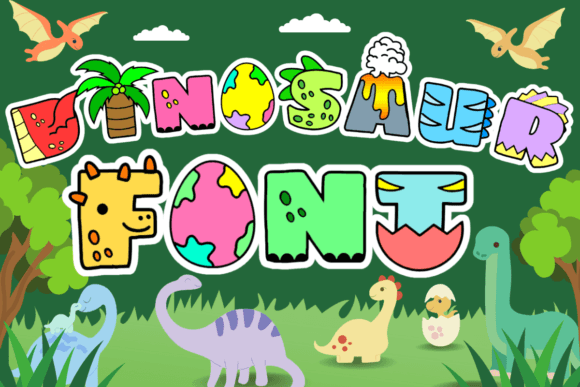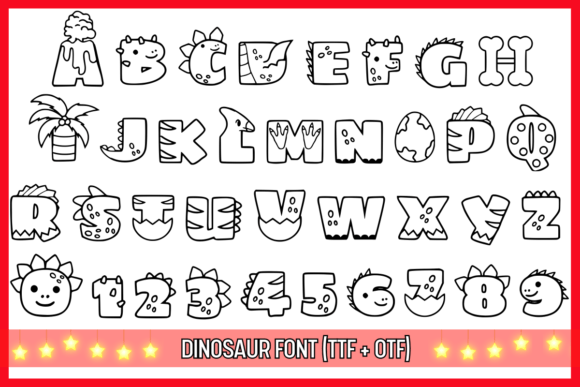
Dinosaur Font
“Dinosaur font” is a special type of writing where each letter looks like a dinosaur! It’s a fun and creative way to make words look playful and interesting, perfect for adding a unique touch to projects like posters or invitations.